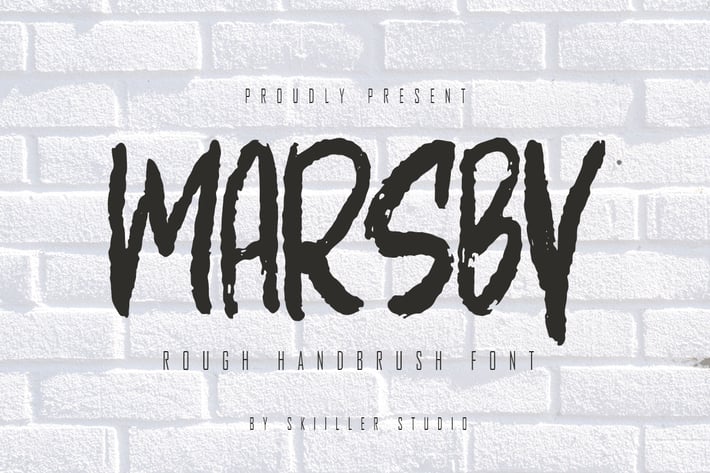
Marsby - Rough Handbrush Font
Marsby Font Brushee is a modern textured font. It is suitable for food posters, for logos, music covers, clothing, and many cool design projects.